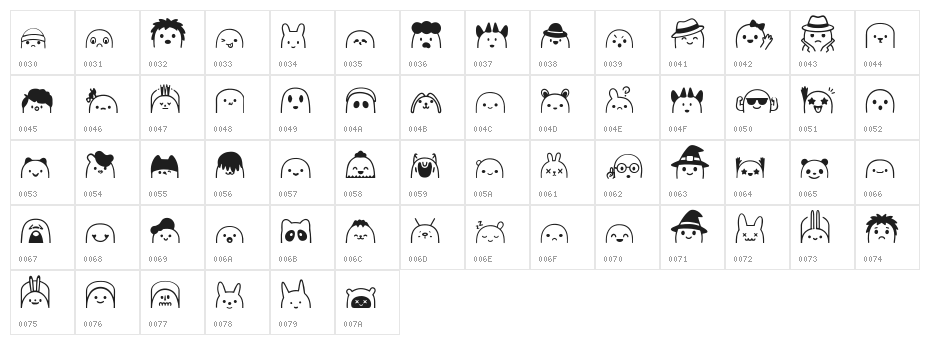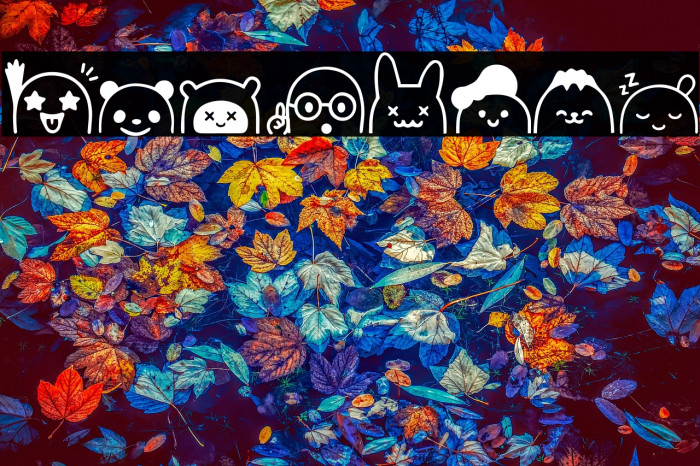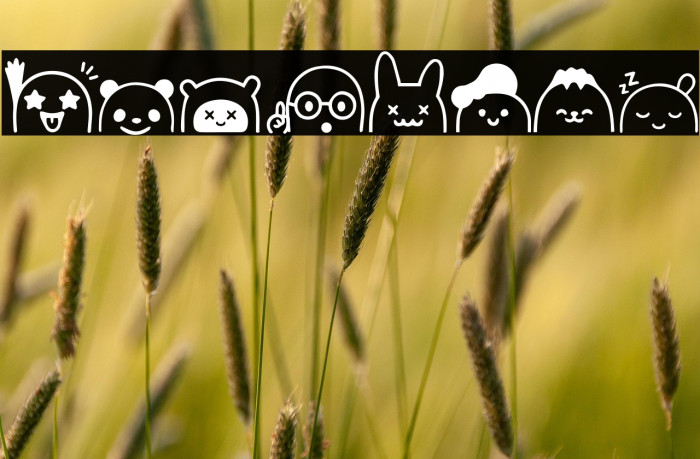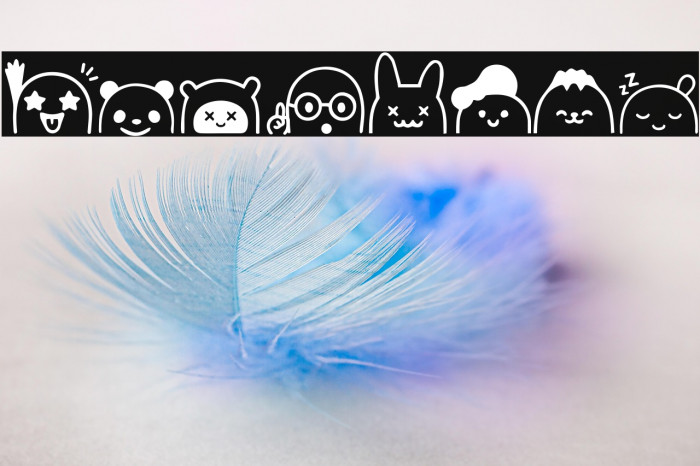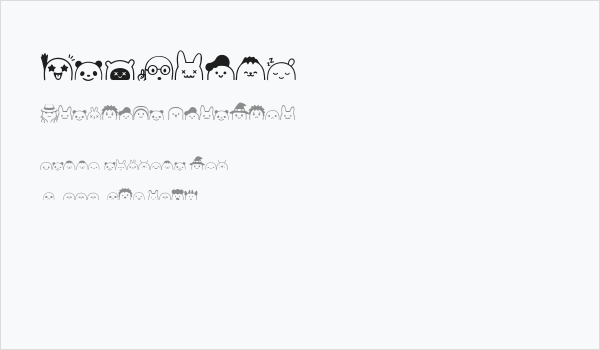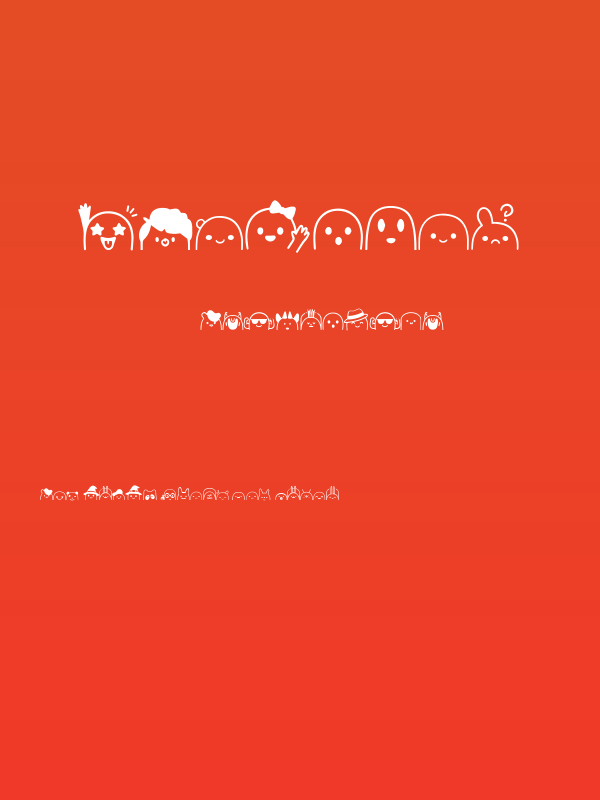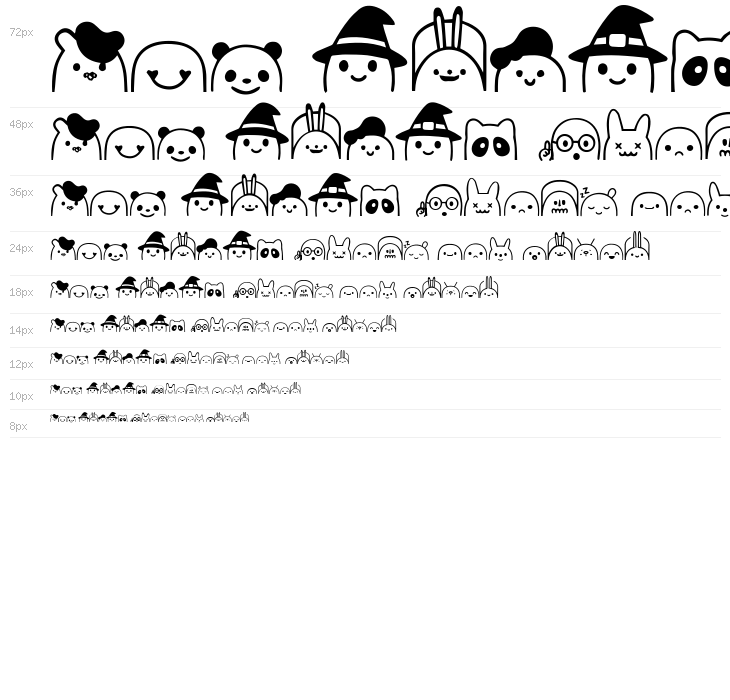
Qezbriln Font
Qezbriln Description
A playful and decorative font composed entirely of unique cartoon faces, each character represented by a different whimsical expression or accessory, creating a lively and informal appearance.
| Overall Style | Decorative, Playful, Whimsical |
| Use Case | Logos, Headlines, Posters, ChildrenΓ’β¬β’s materials |
| Proposed Projects | ChildrenΓ’β¬β’s books, party invitations, playful branding, greeting cards, educational materials. |